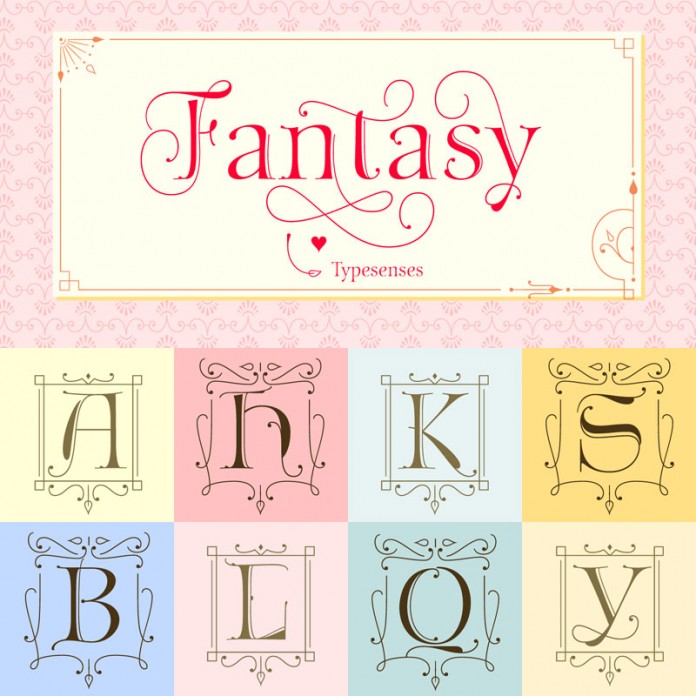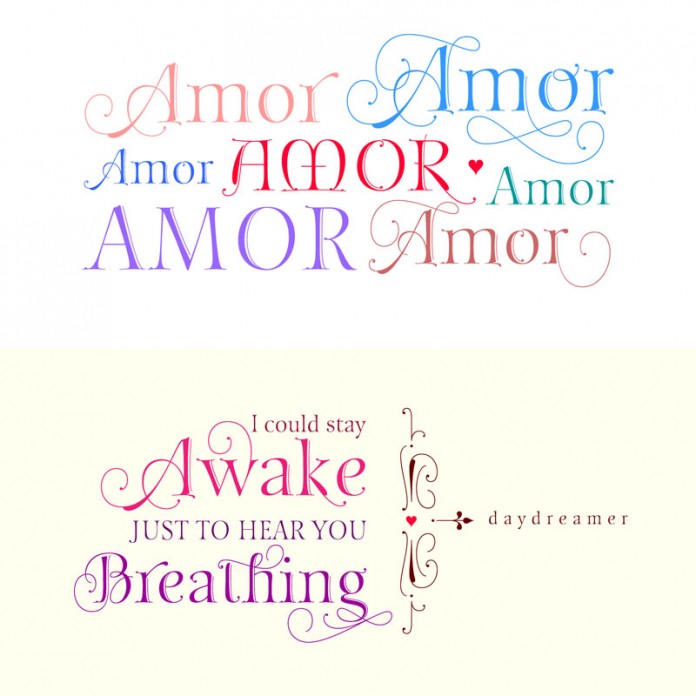
The Fantasy font family, a festive display typeface from foundry Typesenses.
Sabrina Mariela Lopez, a Buenos Aires, Argentina based calligrapher as well as type and graphic designer has created the Fantasy font family for foundry Typesenses. It’s a festive display font that combines Roman styles and Lombardic decorations.
The family consists of 5 styles including a huge set of ornaments. Fantasy is the perfect choice for classic book cover designs as well as greeting cards, invitations, posters, packaging, and letterpress typography.
Numerous alternates, ornaments, frames, and caps ensure plenty of typographic options. Fantasy’s Pro version is equipped with more than 1400 glyphs. You will love to work with this beautiful display font family!